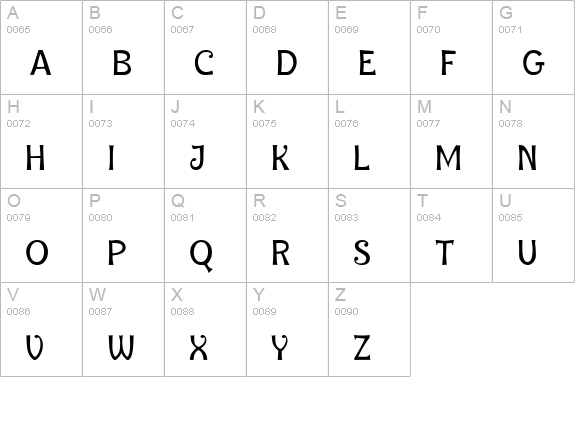
Ingone Font Details
Ingone font is a stunning typeface that seamlessly blends elegance and modernity. With its sleek and sophisticated design, this font instantly captivates the eye and adds a touch of professionalism to any project. Its clean lines and well-defined curves make it perfect for both headings and body text, ensuring maximum readability without compromising on style. But what truly sets Ingone font apart is its accessibility - it is completely free! You heard that right, this amazing font can be downloaded at absolutely no cost from FontsMarket.com. This makes it an ideal choice for designers, students, and anyone else looking to add a touch of class to their work without breaking the bank. Whether you're designing a logo, creating a website, or crafting a presentation, Ingone font is sure to elevate your project to new heights. Its versatility allows it to seamlessly adapt to various design styles and themes, making it a go-to choice for any creative endeavor. With Ingone font, you can unleash your creativity and make a lasting impression. So why wait? Head over to FontsMarket.com and download this incredible font for free today!